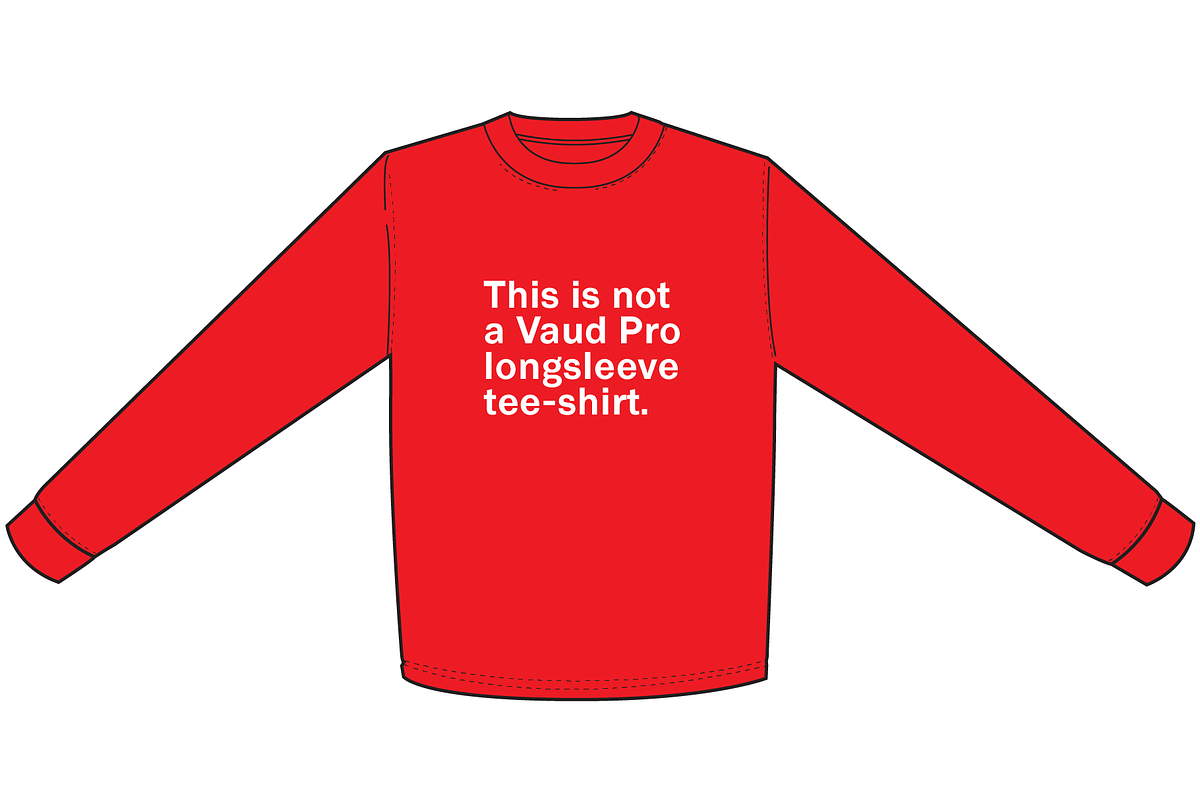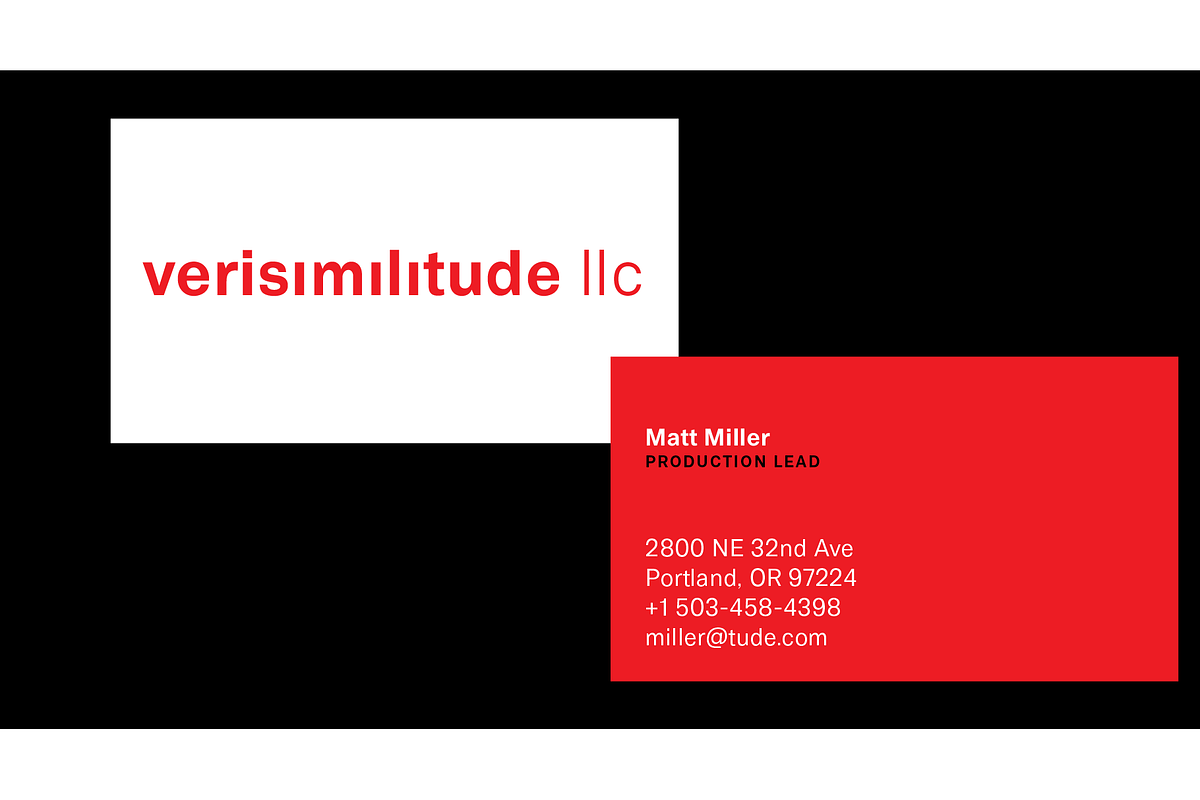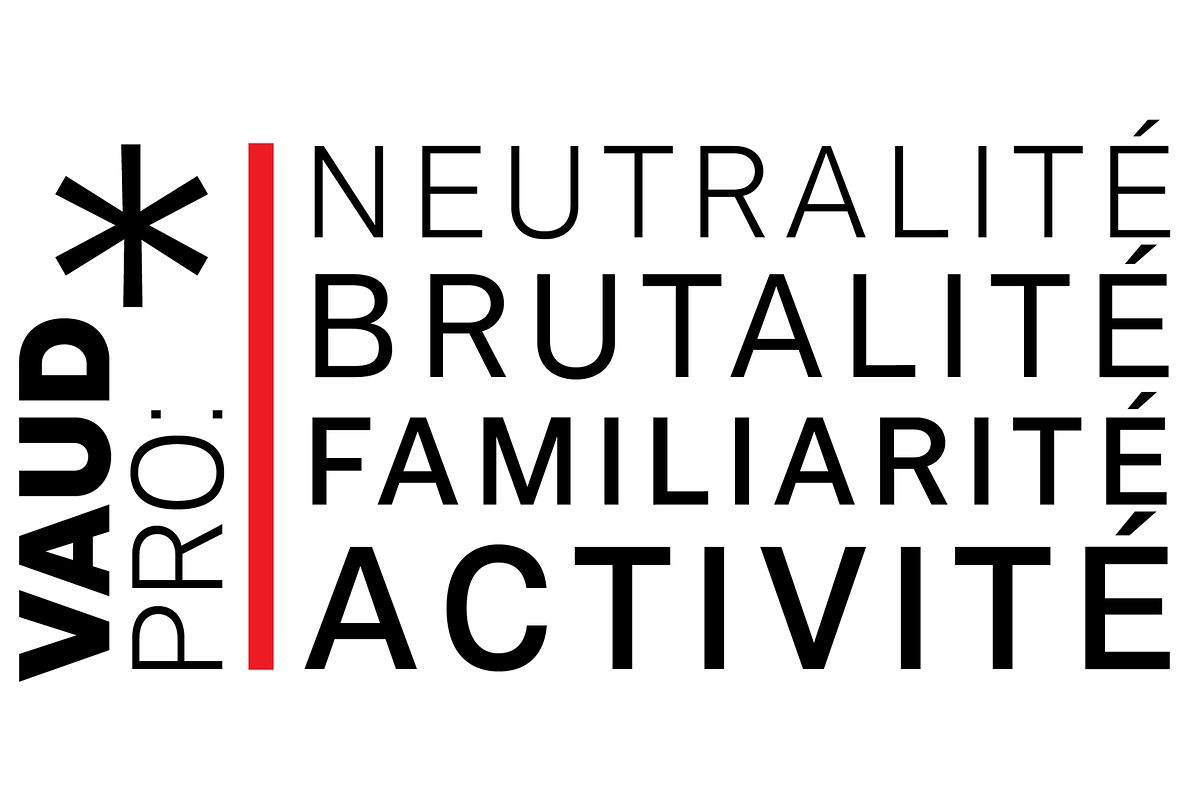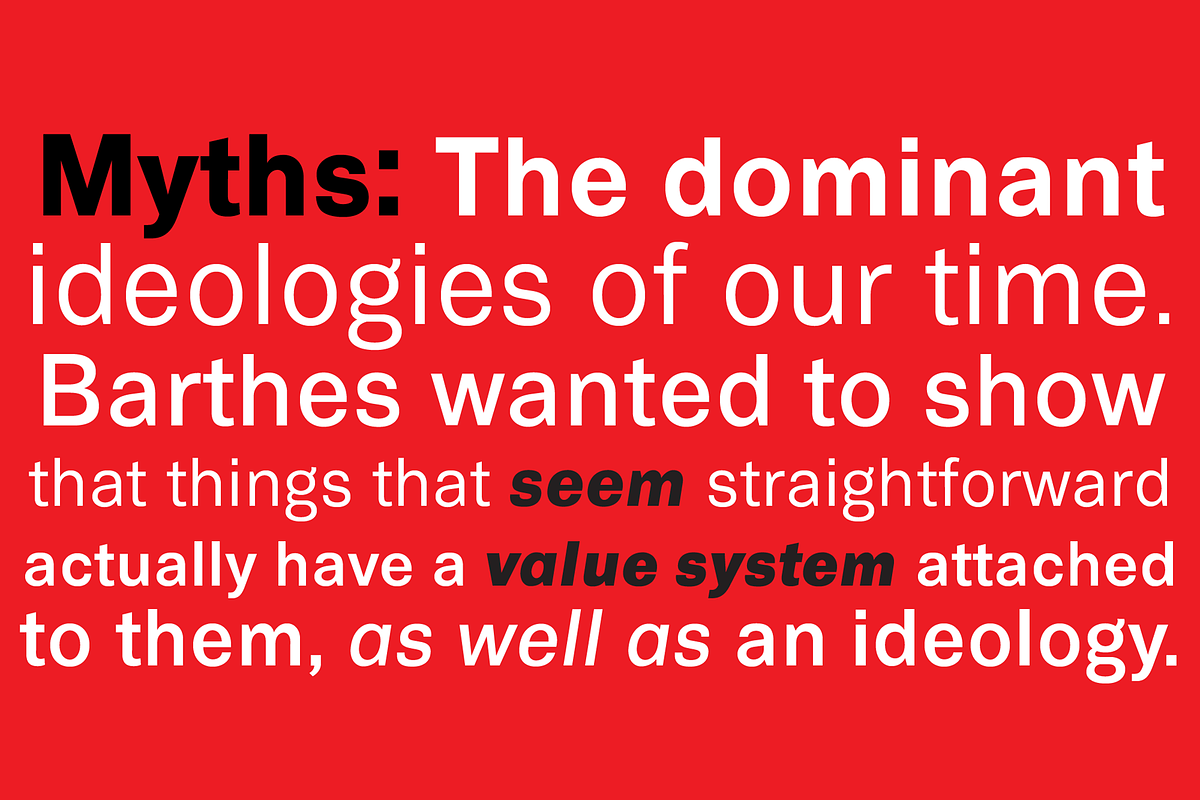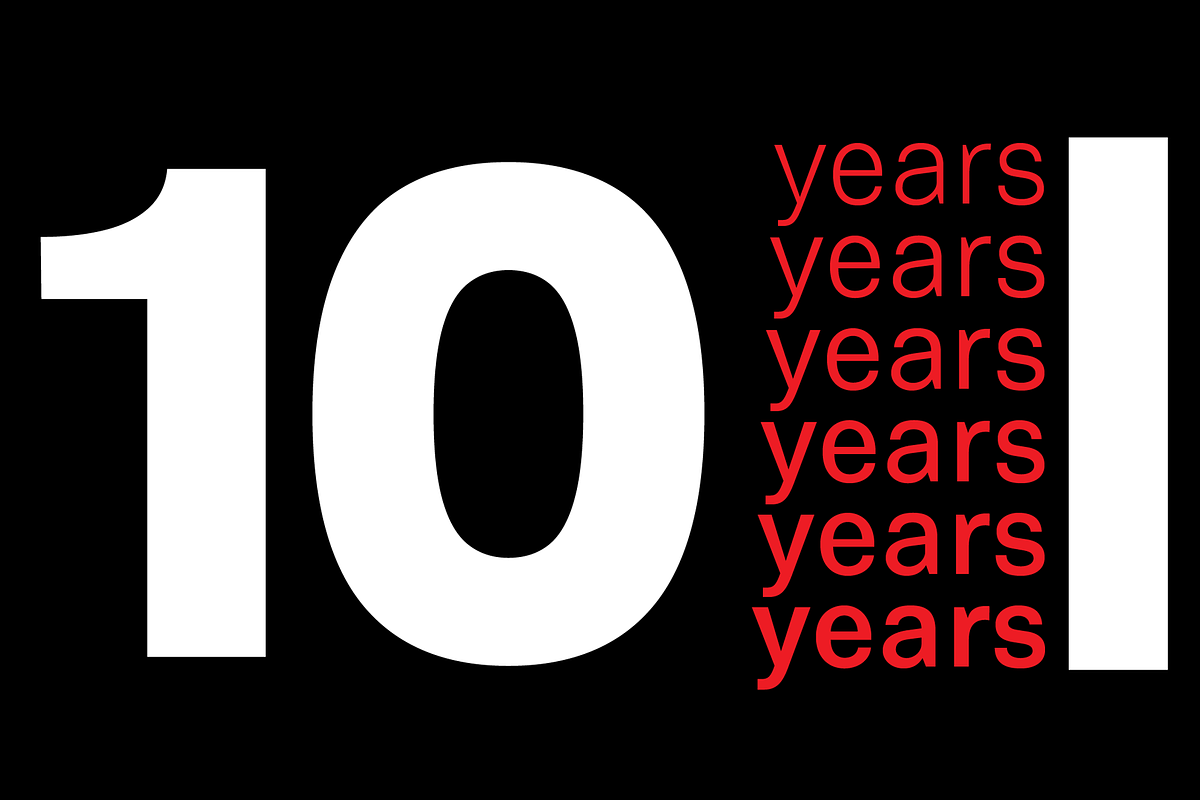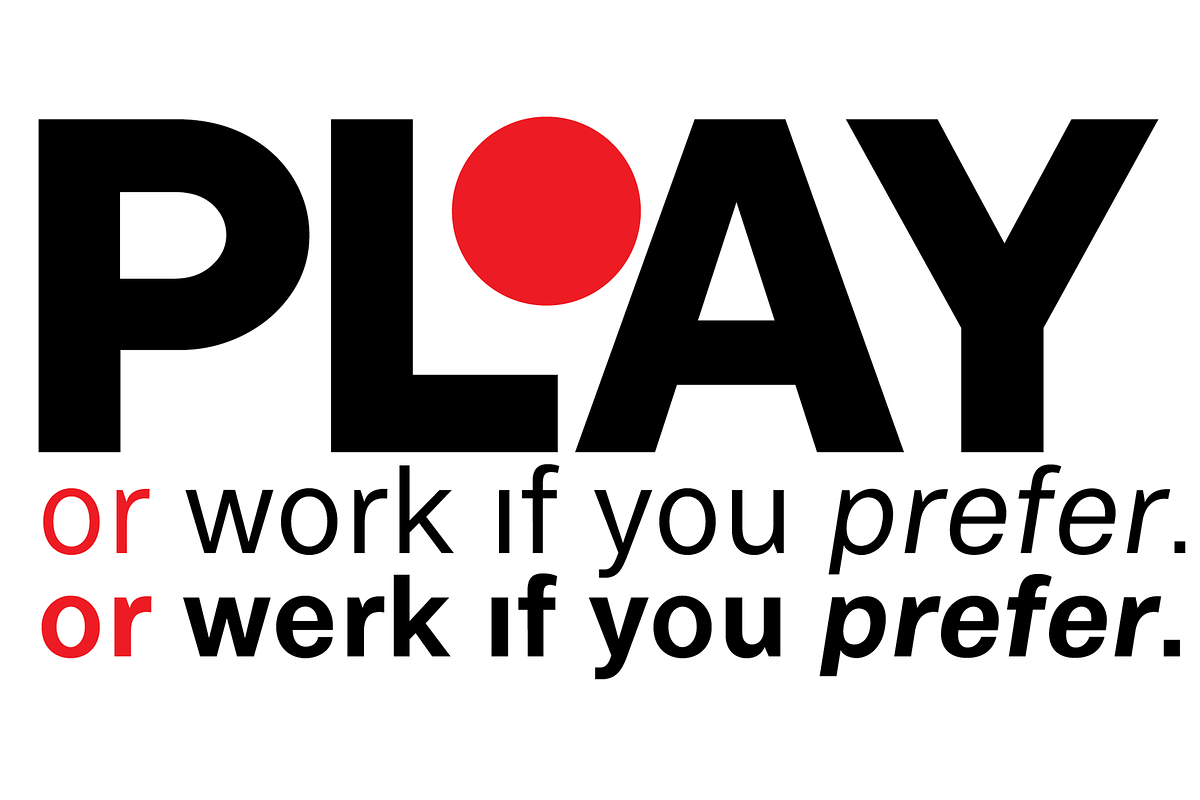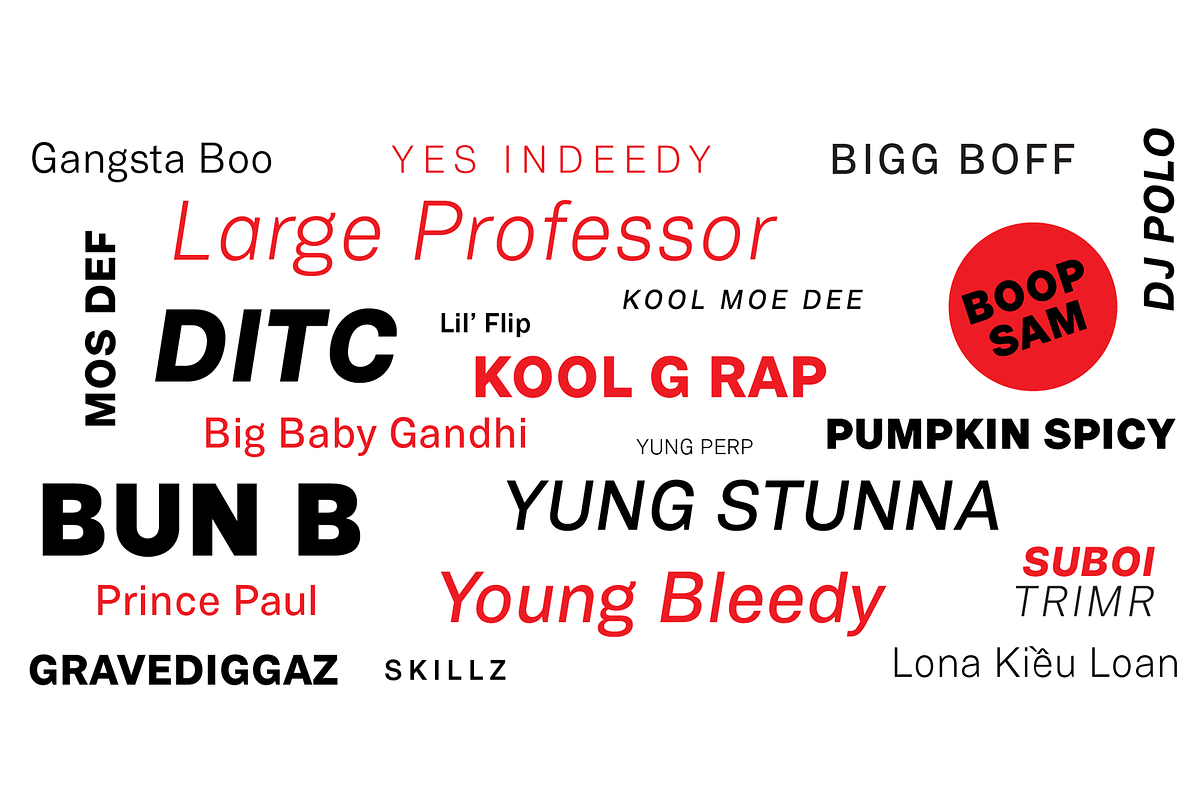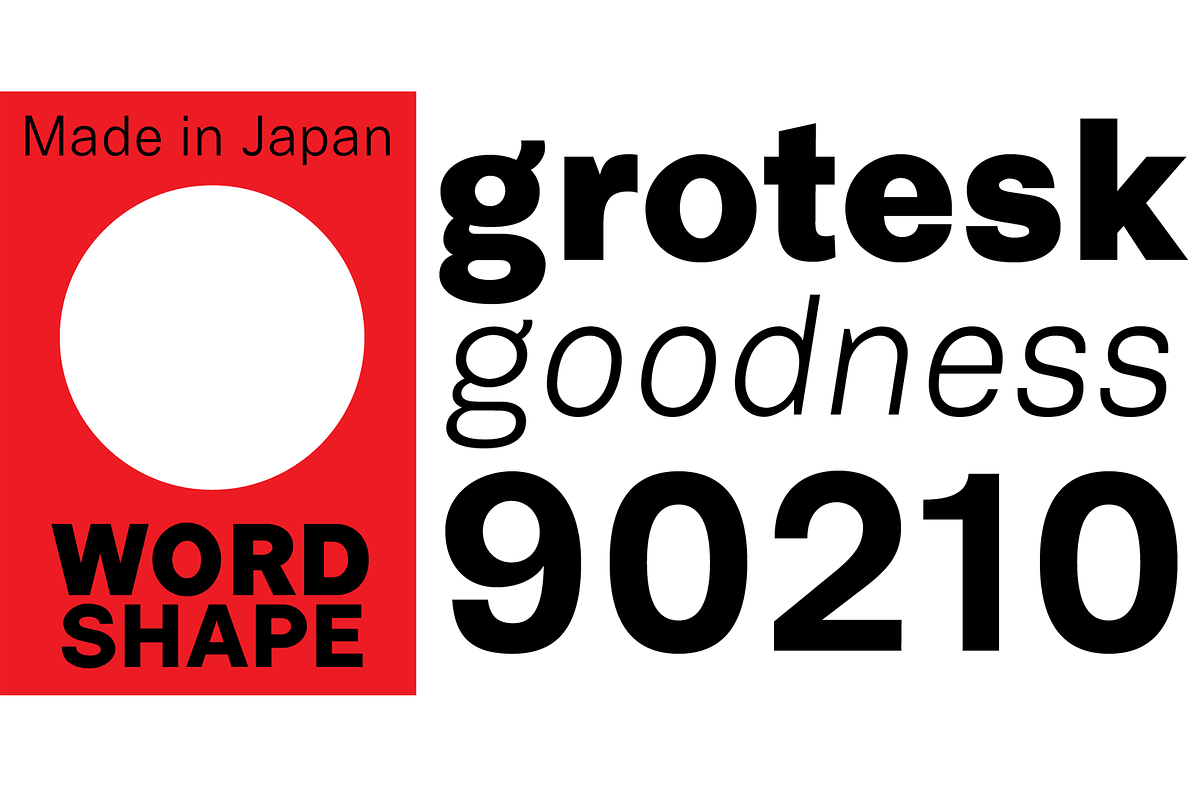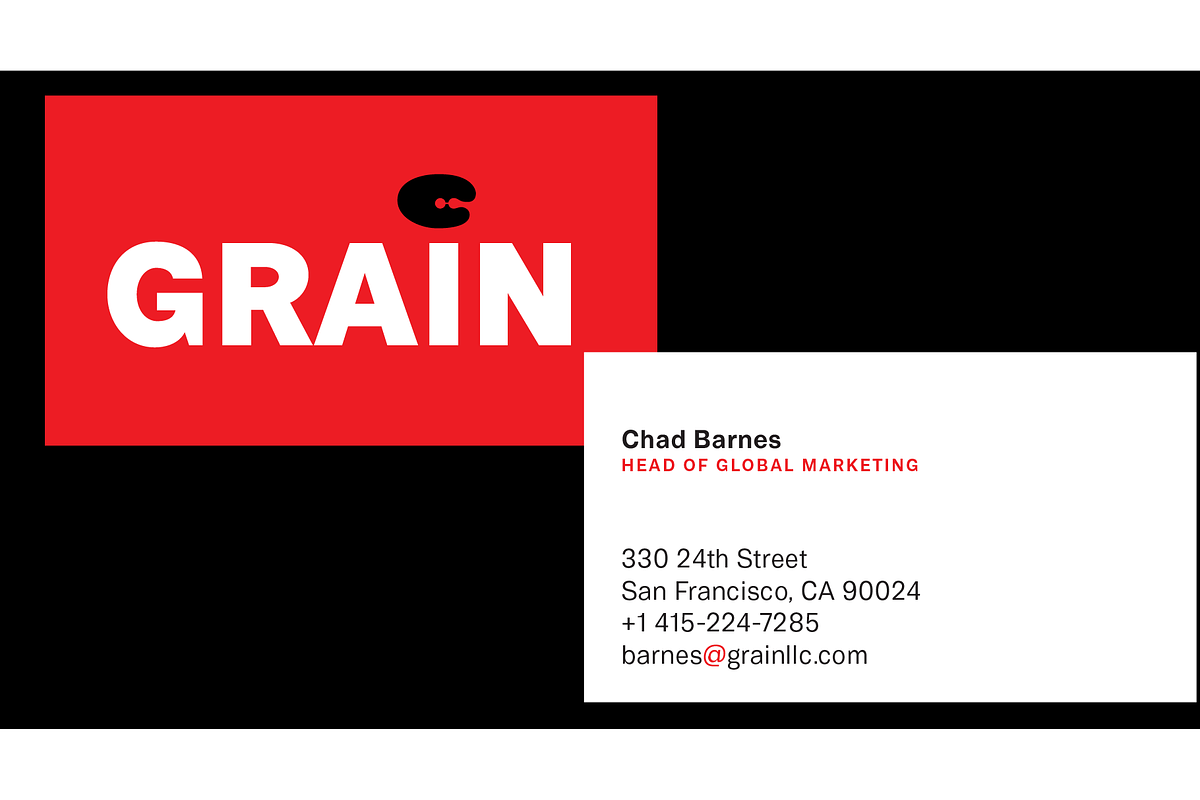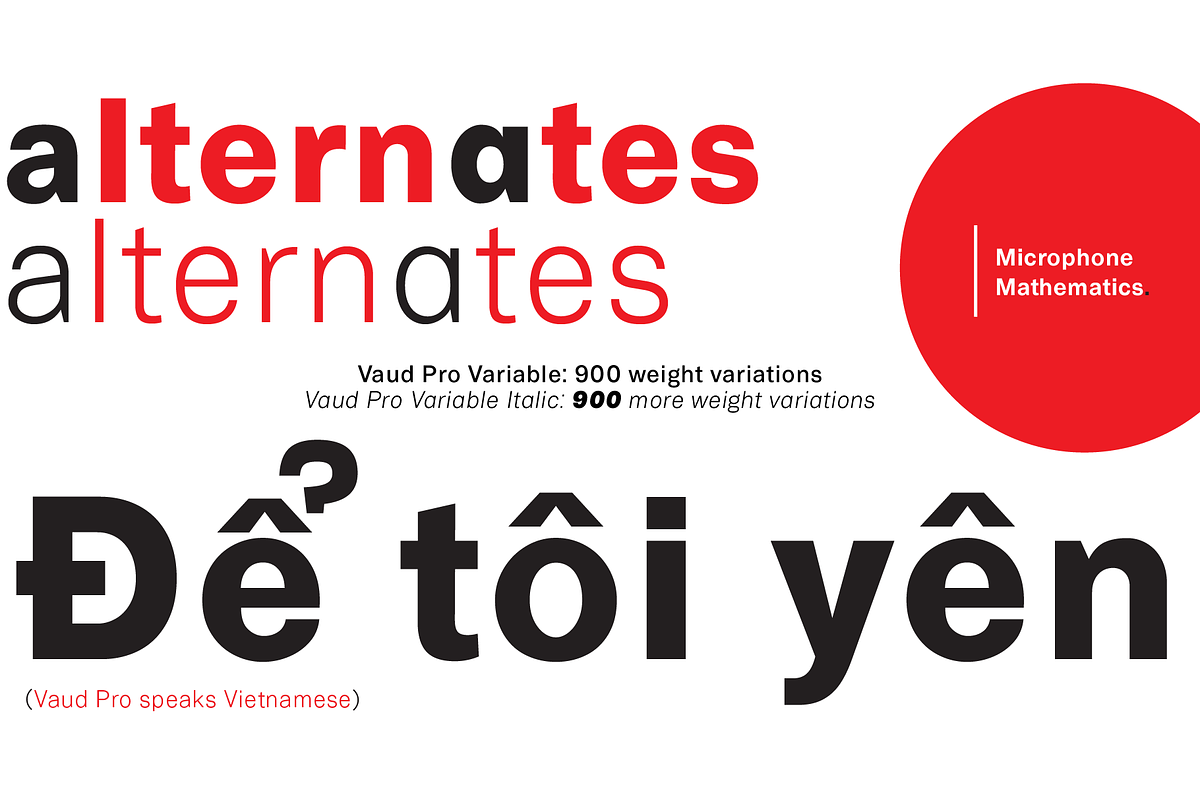
Vaud Pro
Ten years after its initial release, we’re debuting Vaud Pro, our completely redrawn and reengineered version of our type family Vaud. Vaud Pro includes heaps more language support including Vietnamese, a select few tasty alternates, and so much more!
The OpenType version features 10 expansive weights across the Roman and Italic of Vaud Pro.
Vaud Pro is inspired by the original German and Swiss sans serif families with a healthy twist of influence from Stephenson & Blake’s O.G. English grotesks, extruded into a contemporary type family that straddles the niceties of sans and grotesks.
The entire Vaud Pro family features detailed kerning and spacing so that the entire family will work precisely on-screen and in print. Pair Vaud Pro with Baskerville, Caslon, or any other stately serif family for rigorous, stable and connotative visual communications.